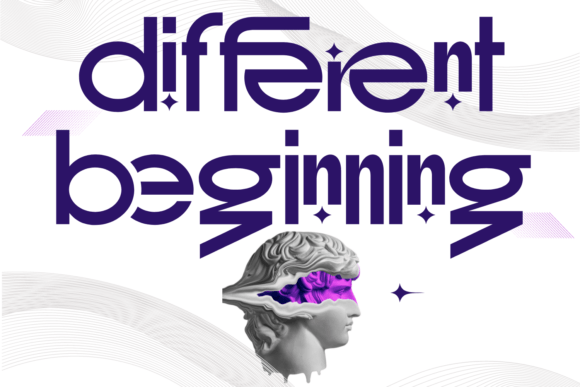
Welcome to the world of Difference Beginning, a geometric sans serif font that defies the ordinary and sparks a connection with your audience. Created by the visionary designers at 177Studio, this remarkable font pushes the boundaries of modern design, leaving an indelible mark on your creative endeavors.
Immerse yourself in a realm of limitless possibilities, where sharp angles dance alongside elegant curves, creating a symphony of visual harmony. Crafted with meticulous precision, Difference Beginning blends classic elegance with a contemporary edge, seamlessly adapting to a world where innovation meets tradition.
As you embark on your creative journey, Difference Beginning becomes your trusted companion, a font that speaks volumes without uttering a single word. Its bold lines command attention, while its delicate details whisper grace. Whether you're crafting captivating headlines, designing eye-catching logos, or creating enchanting posters, Difference Beginning elevates your message, transforming it into an unforgettable masterpiece.
Explore the extraordinary versatility of Difference Beginning. Its inherent adaptability shines in a myriad of contexts. Unleash its potential in branding materials, allowing your brand's identity to radiate with distinction and leave a lasting impression on your audience. Watch as Difference Beginning weaves its magic, transforming ordinary designs into extraordinary works of art.
With Difference Beginning, you embark on a journey where creativity knows no bounds and imagination reigns supreme. Embrace the distinctive allure of this geometric masterpiece, and let your artistry soar to unprecedented heights. Experience the transformative power of Difference Beginning today and witness the difference it brings to your creative endeavors.